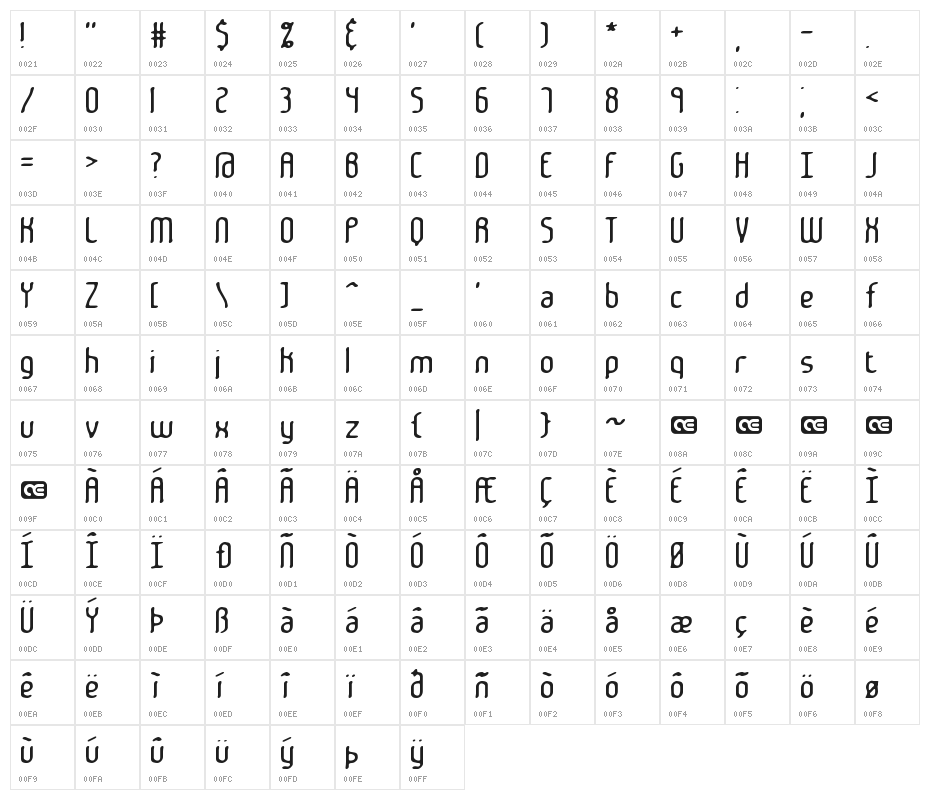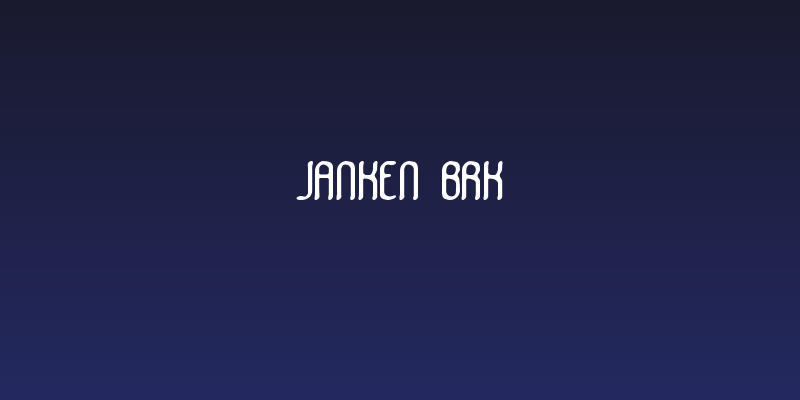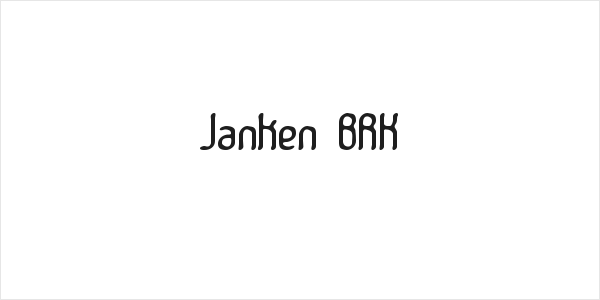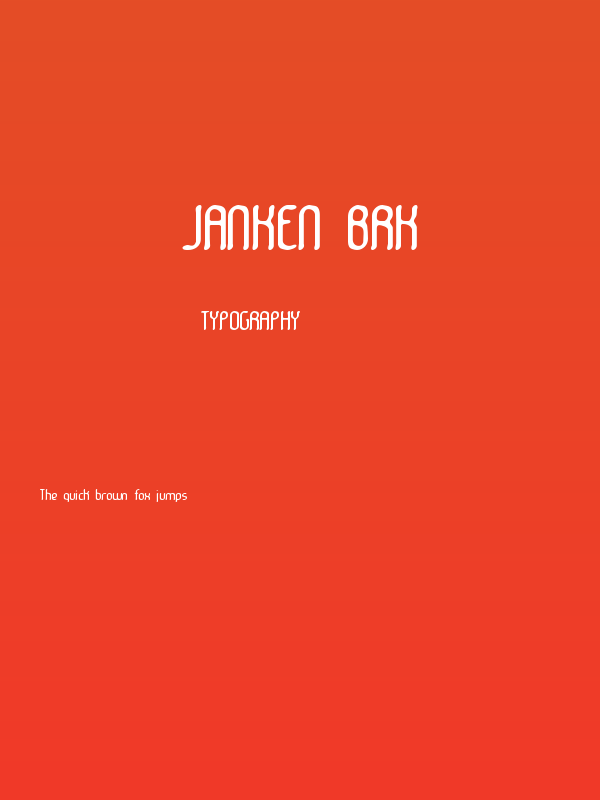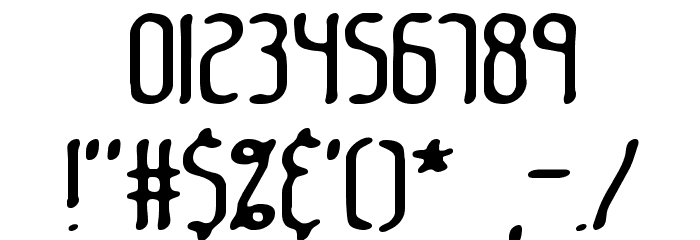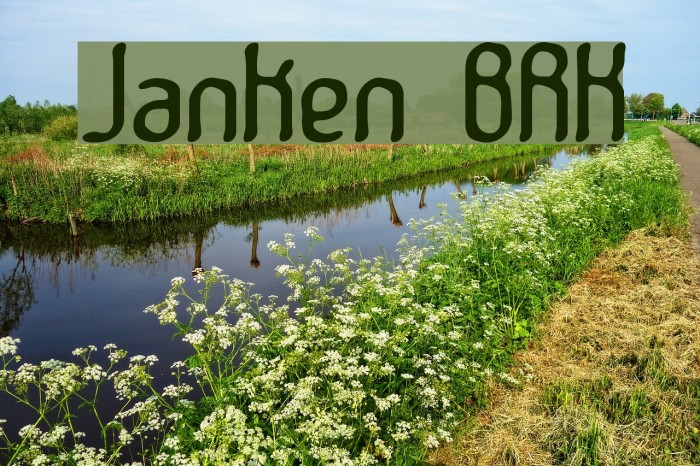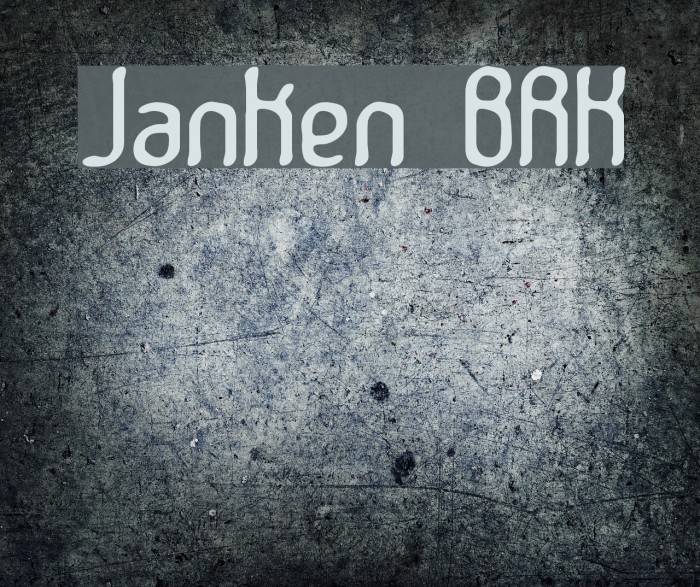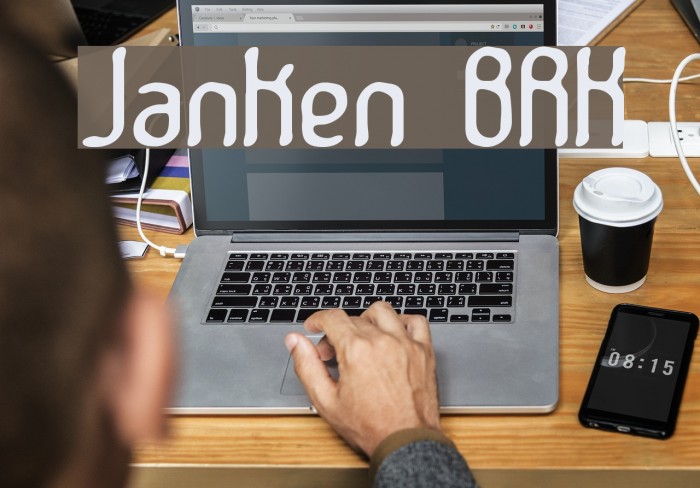
Janken BRK Font
Janken BRK Description
This font features a playful and rounded design, characterized by its smooth, continuous lines and slightly irregular shapes. The uppercase and lowercase letters maintain a consistent height, creating a harmonious appearance. The numbers and special characters follow the same style, ensuring a cohesive look throughout. The font's unique style is both approachable and modern, making it suitable for a variety of creative projects. Its rounded edges and uniform stroke width give it a friendly and inviting feel, perfect for designs that aim to be both eye-catching and accessible.
| Proposed Projects | Ideal for children's books, playful branding, casual invitations, and creative posters. |